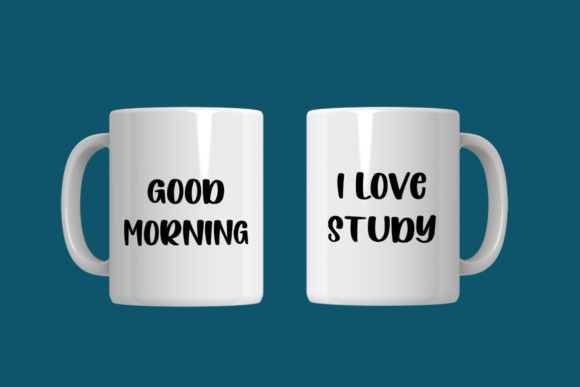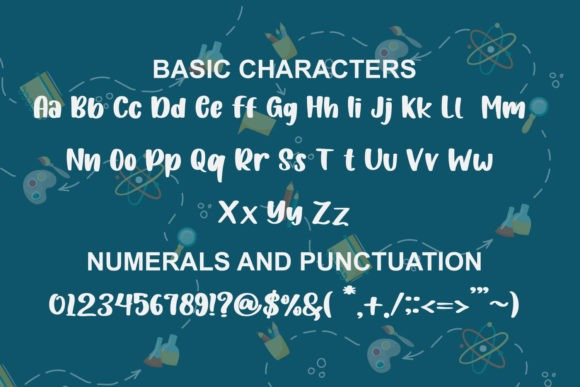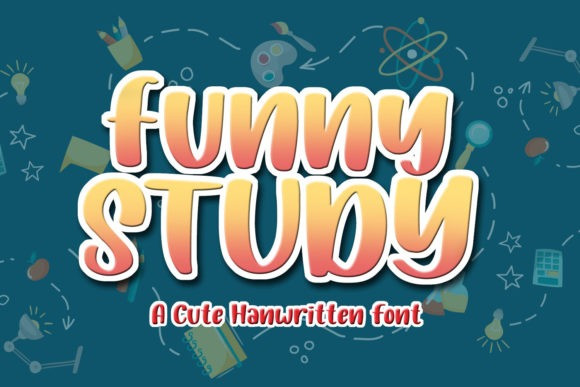
Funny Study Display Font
Funny Study is a cute and playful display font. It is defined by smooth curves and is perfect for fashion branding or editorial designs. Add it confidently to your projects, and you will love the results.